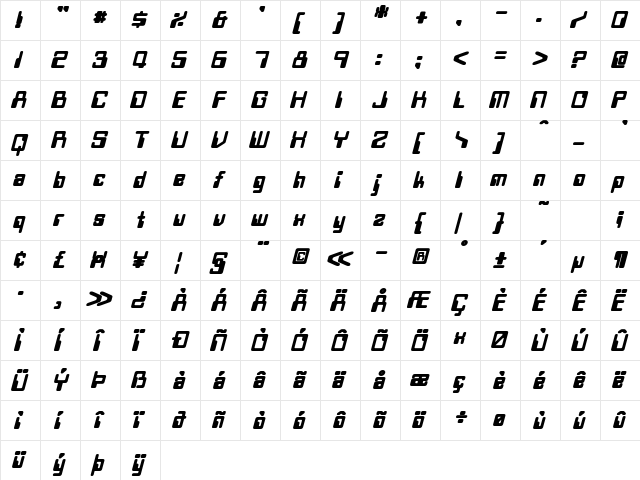
Twobit Bold Italic
| Foundry | Neale Davidson |
| Designer | Neale Davidson |
Design Context for Twobit Typeface
Twobit is a composed and adaptable typeface that performs quietly and consistently across a wide range of design contexts. The dynamic lean of this cut emphasises speed and emphasis in any layout. Its bold stroke weight gives it real presence on the page.
Pro Tip: Use Twobit for emphasis, pull quotes, and subheadings where its slanted energy can add rhythm to the layout.